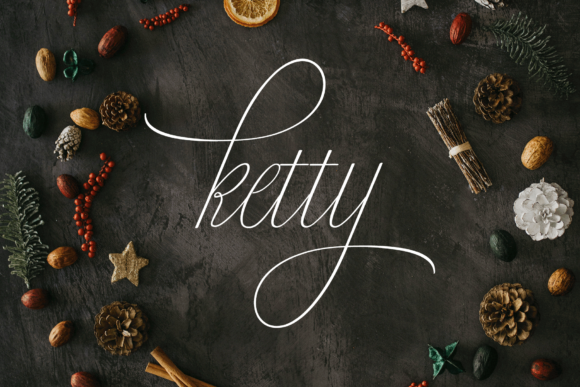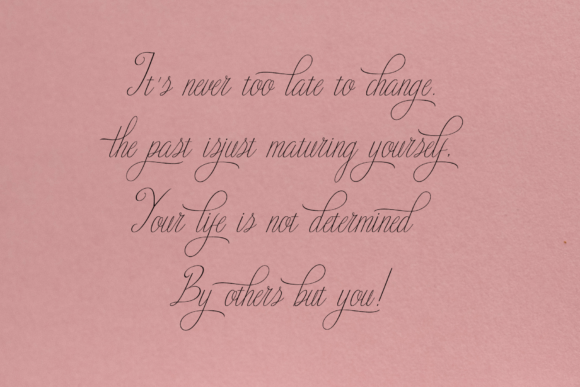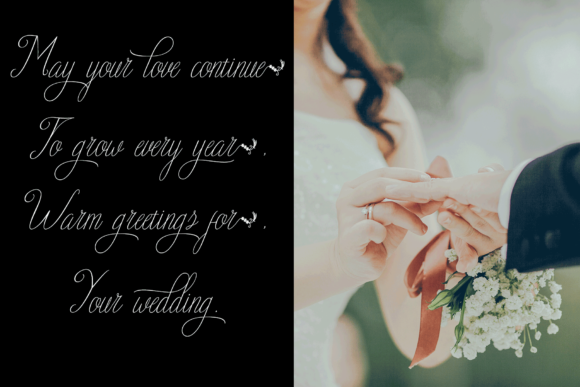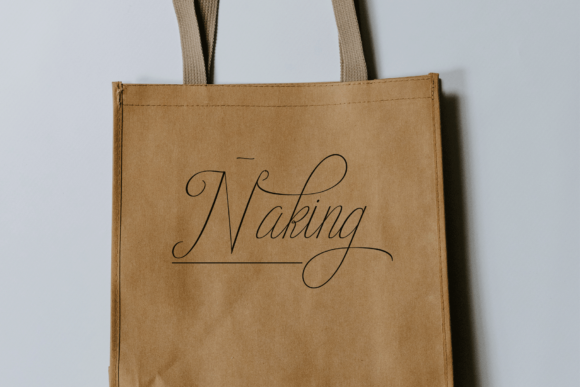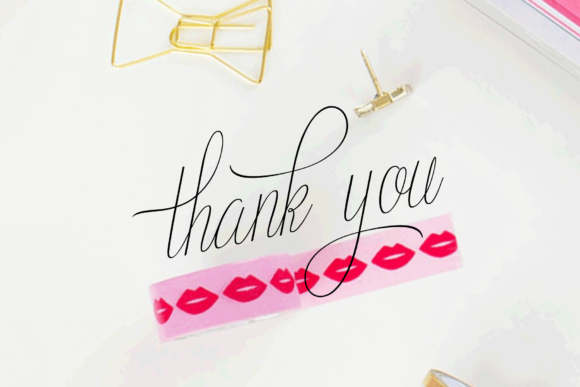
Introducing Faradilla Font: Elevate Your Designs with Elegance and Flair
Are you a designer or crafter looking for a font that exudes elegance and sophistication? Look no further than Faradilla Font. This beautiful handwritten font is perfect for adding a touch of refinement to your designs, from wedding invitations to business cards.
The Beauty of Faradilla Font
Faradilla Font is a stunning example of modern calligraphy. Its flowing lines and varying baseline give it a sense of movement and fluidity, making it perfect for designs that require a touch of whimsy and romance. The font features gorgeous glyphs and stunning alternates, allowing you to add a level of customization to your designs.
Perfect for a Variety of Designs
Faradilla Font is incredibly versatile and can be used for a wide range of designs, including:
• Wedding invitations: Add a touch of elegance to your wedding stationery with Faradilla Font.
• Thank you cards: Express your gratitude in style with this beautiful font.
• Quotes: Make your quotes stand out with Faradilla Font’s elegant script.
• Greeting cards: From birthdays to holidays, Faradilla Font is perfect for any occasion.
• Logos: Add a touch of sophistication to your brand with Faradilla Font.
• Business cards: Stand out from the crowd with a beautifully designed business card featuring Faradilla Font.
What Makes Faradilla Font So Special?
So, what sets Faradilla Font apart from other fonts? Here are just a few features that make it so special:
• Varying baseline: Gives the font a sense of movement and fluidity.
• Smooth lines: Create a sense of elegance and sophistication.
• Gorgeous glyphs: Add a touch of whimsy and personality to your designs.
• Stunning alternates: Allow you to customize your designs and add a level of uniqueness.
Why Designers and Crafters Love Faradilla Font
Designers and crafters love Faradilla Font for its versatility and elegance. Here are just a few reasons why:
• Easy to read: Despite its elegant script, Faradilla Font is easy to read, making it perfect for designs that require a level of professionalism.
• Customizable: With its stunning alternates and gorgeous glyphs, Faradilla Font allows you to add a level of customization to your designs.
• Timeless: Faradilla Font is a timeless font that will never go out of style, making it a great investment for designers and crafters.
Tips for Using Faradilla Font
Here are a few tips for using Faradilla Font in your designs:
• Use it sparingly: Faradilla Font is a statement font, so use it sparingly to add a touch of elegance to your designs.
• Pair it with a sans-serif font: Pair Faradilla Font with a sans-serif font to create a beautiful contrast.
• Experiment with alternates: Don’t be afraid to experiment with Faradilla Font’s stunning alternates to add a level of customization to your designs.
Faradilla Font is a beautiful handwritten font that is perfect for designers and crafters looking to add a touch of elegance and sophistication to their designs. With its varying baseline, smooth lines, gorgeous glyphs, and stunning alternates, Faradilla Font is a versatile font that can be used for a wide range of designs. Whether you’re creating wedding invitations, business cards, or greeting cards, Faradilla Font is sure to make your designs stand out.